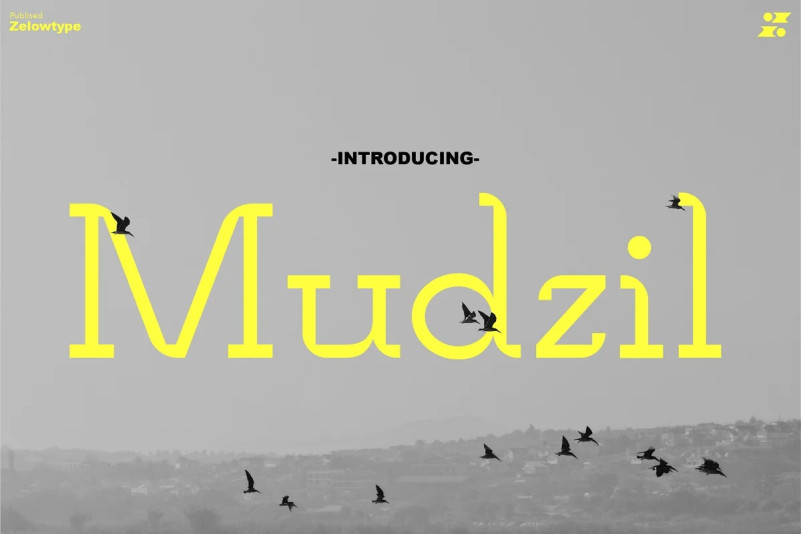
Mudzil Slab Serif Font, is a cool and thin lettered serif font. No matter the topic, this font will be an incredible asset to your fonts’ library, as it has the potential to elevate any creation.